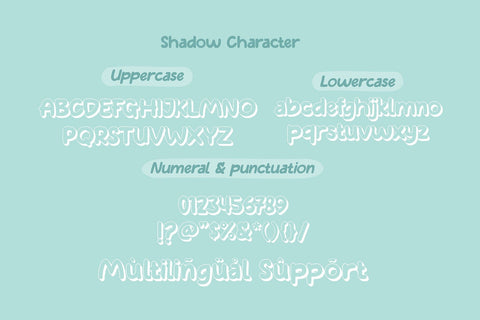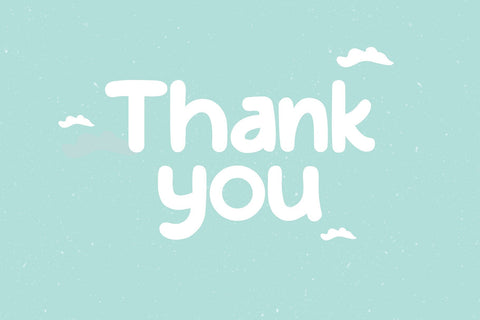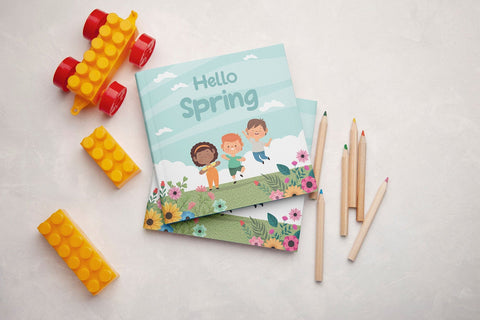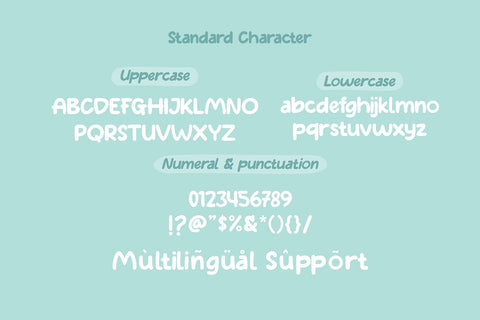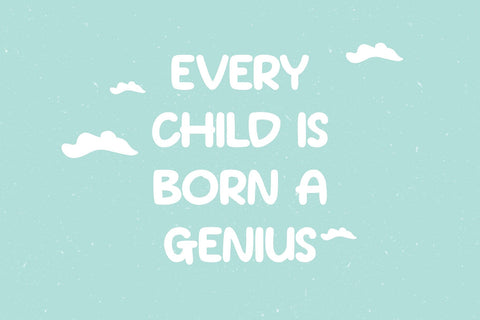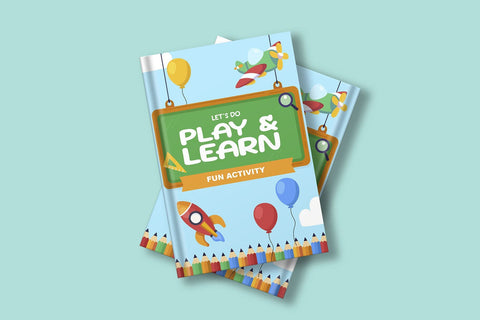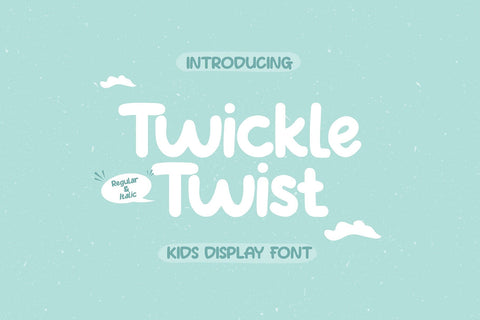
Twickel Twist - Kids Handwritten Font
Twickle Twist is a monoline handwritten font with a cute and playful personality, perfect for kid-friendly and cheerful designs. Available in regular and italic styles, this font features smooth, flowing strokes that mimic natural handwriting, making it ideal for children’s books, greeting cards, school projects, branding, and creative crafts.
With its soft curves and charming letterforms, Twickle Twist adds a fun and lighthearted touch to any project. Whether you're designing for stickers, logos, social media, or DIY crafts, this font brings warmth, joy, and a friendly vibe to your typography.
- Graffiti Characters looks